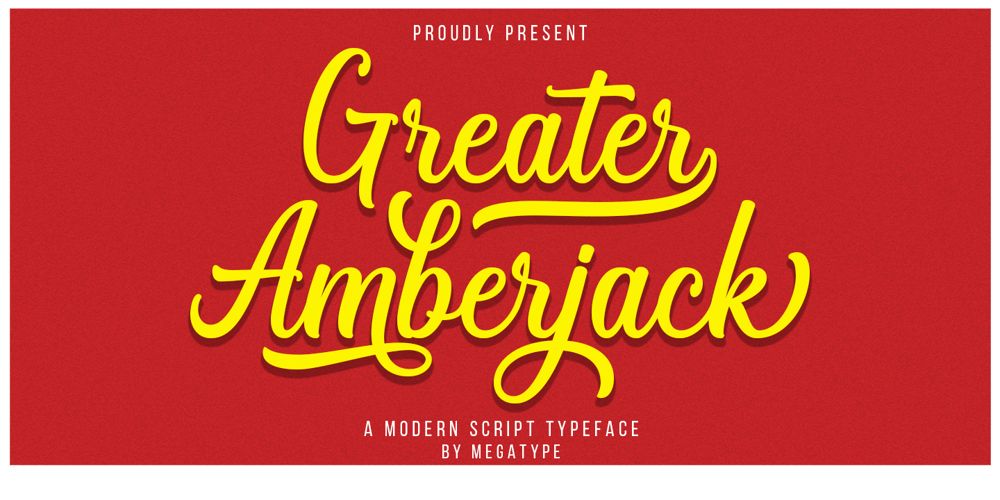
Greater Amberjack Font Family was designed by M Akmal and published by Mega Type. Greater Amberjack contains 1 styles and family package options. Greater Amberjack is a modern script typeface, a modern script that is elegant and fun. A combination of classic and modern style fonts. This font can be used easily, even in mixing and matching with other fonts so that it can provide alternatives and new sensations for you when working on various projects. Greater Amberjack can be used for various purposes such as logos, brochures, wedding invitations, cover magazines, packaging, t-shirts, letterheads, labels, news, posters, and more.Greater Amberjack features OpenType stylistic alternates, ligatures and International support for most Western Languages. To enable the OpenType Stylistic alternates, you need a program that supports OpenType features such as Adobe Illustrator CS, Adobe Indesign & CorelDraw X6-X7, Microsoft Word 2010 or later versions.Greater Amberjack is coded with PUA Unicode, which allows full access to all the extra characters without having special designing software. Mac users can use Font Book and Windows users Character Map to view and copy any of the extra characters to paste into your favorite text editor/app.If you have any question, don’t hesitate to contact me by email : megatype04@gmail.comThanks so much for looking and Enjoy it!